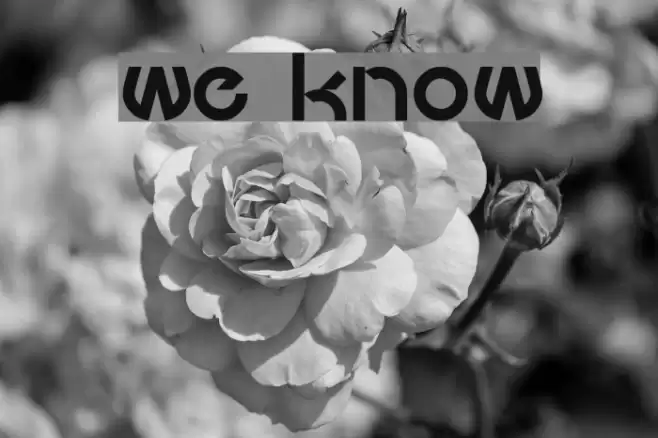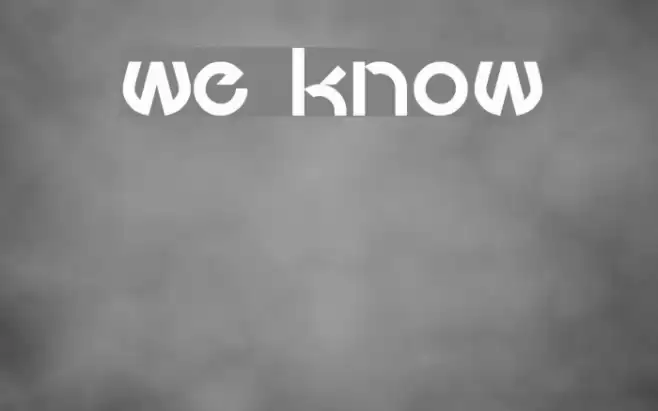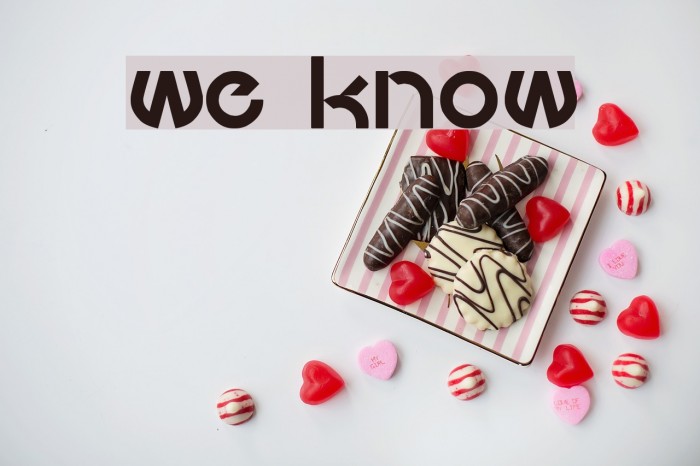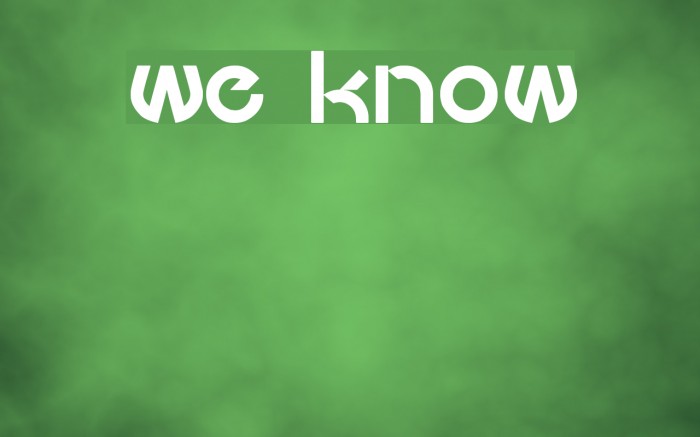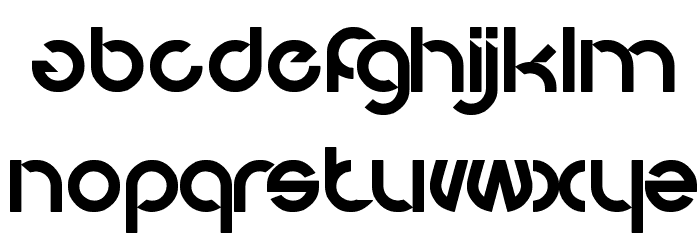
we know
This font features a modern and geometric design, characterized by its clean lines and rounded edges. The letters are constructed with a consistent stroke width, giving it a uniform appearance. The unique aspect of this font is its futuristic style, achieved through the use of circular and semi-circular shapes that form the basis of each character. The font maintains a balanced look, with each letter having a similar height and width, contributing to its harmonious aesthetic. The absence of serifs and the smooth curves make it suitable for contemporary design projects.
A modern, geometric font with clean lines and rounded edges.